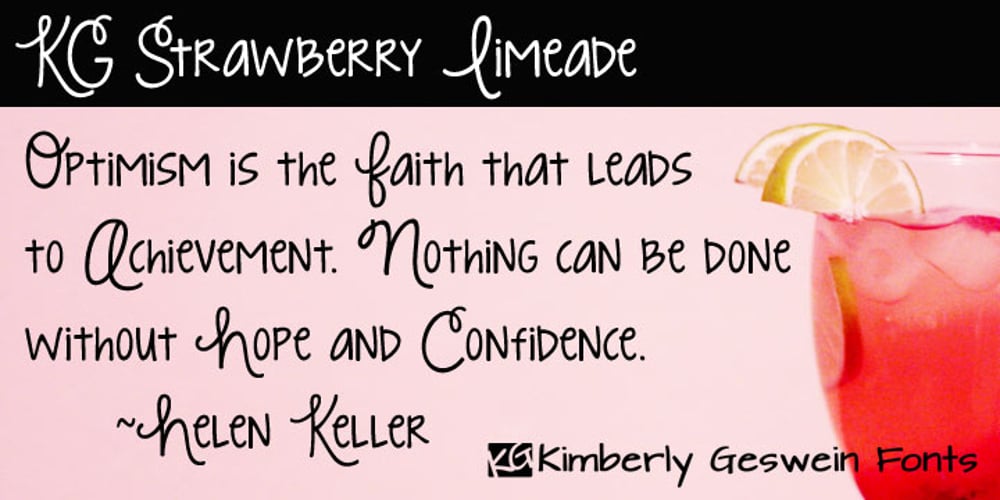
KG Strawberry Limeade Font Family was designed by Kimberly Geswein and published by Kimberly Geswein. KG Strawberry Limeade contains 1 styles and family package options. Doodled, whimsical, curly “capitals” (some of which are lowercase styles) are paired with unicase lowercase letters in a playful mix of capital and lowercase styles.